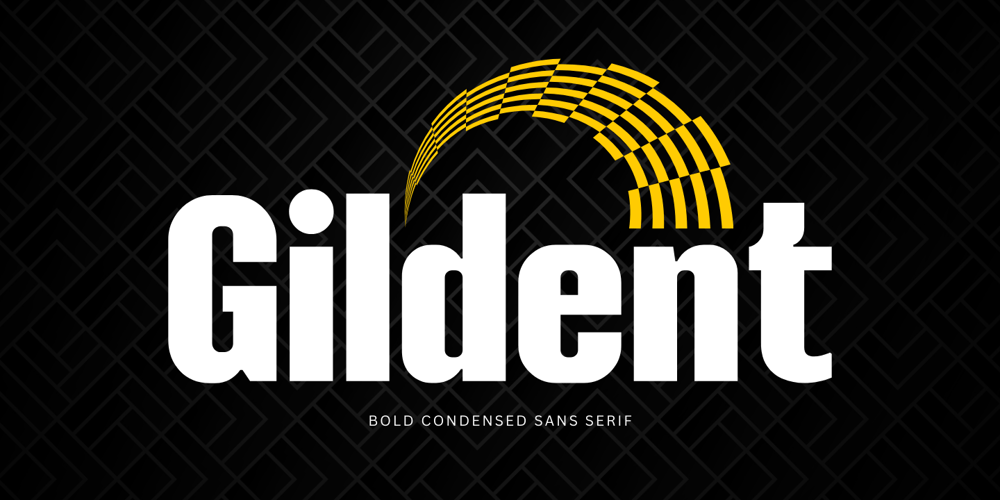
Gildent Font Family was designed by Muhamad Yusron Billah and published by Sronstudio. Gildent contains 1 styles and family package options. Introducing “Gildent,” a bold condensed sans serif font that commands attention with its striking presence. With its clean lines and compact form, this font exudes confidence and modernity. Perfect for making bold statements in headlines, posters, or branding materials. “Gildent” adds a touch of sleekness and sophistication to your designs, ensuring they stand out with a powerful typographic impact.Features:- PUA Encoded- Multilingual support- Simple Installation- Work both on Mac and WindowsThank you very much 🙂